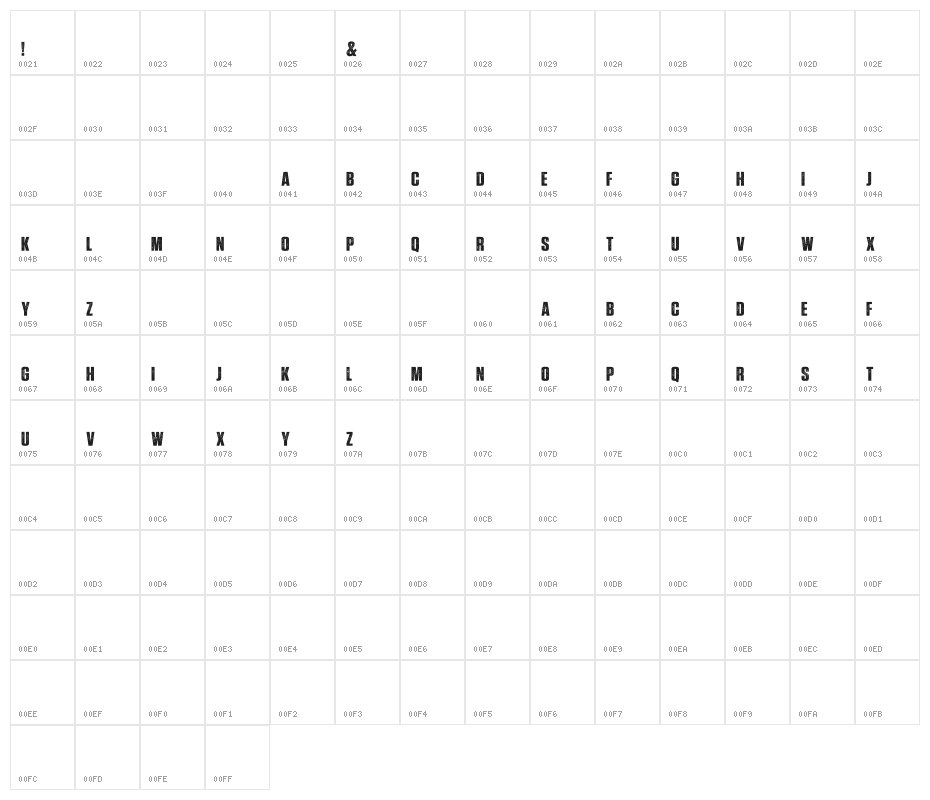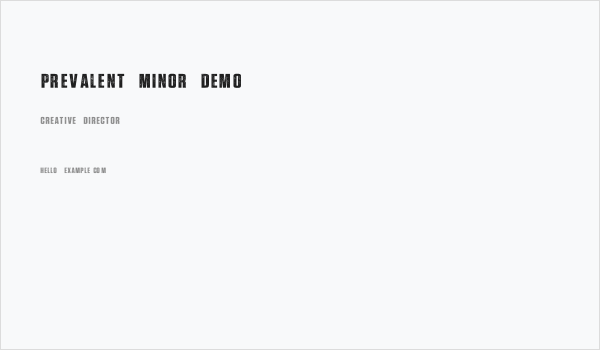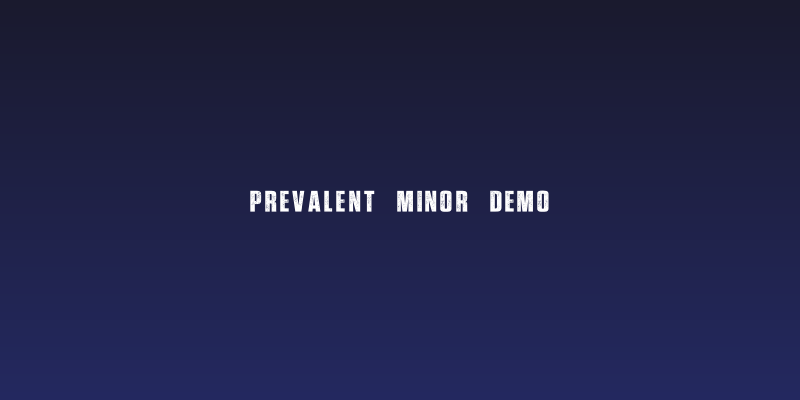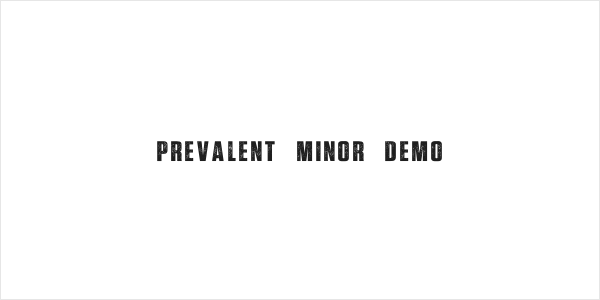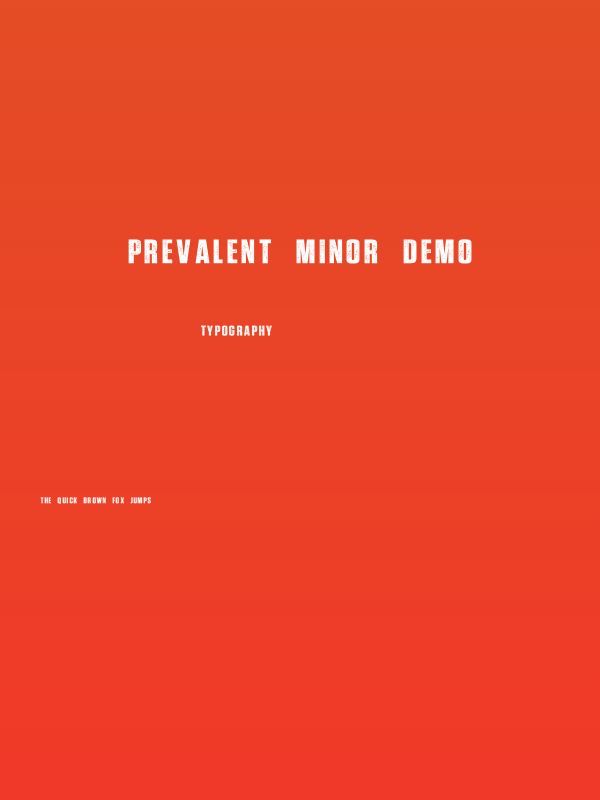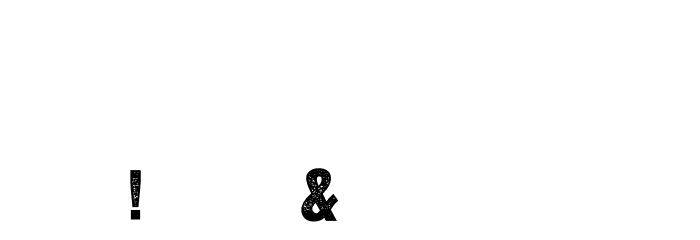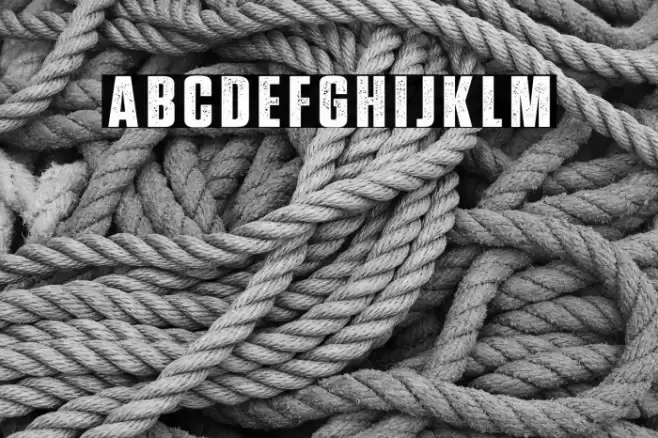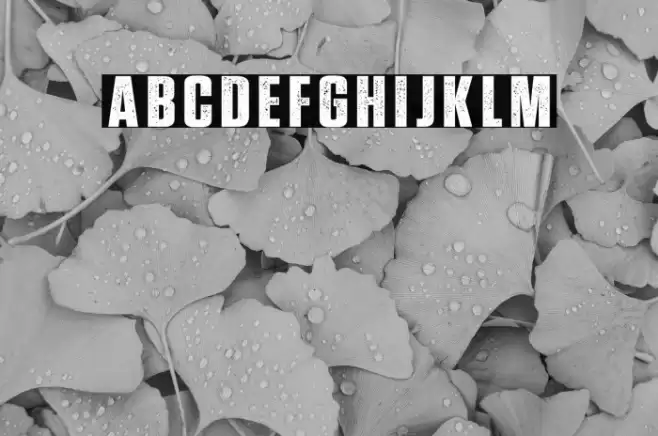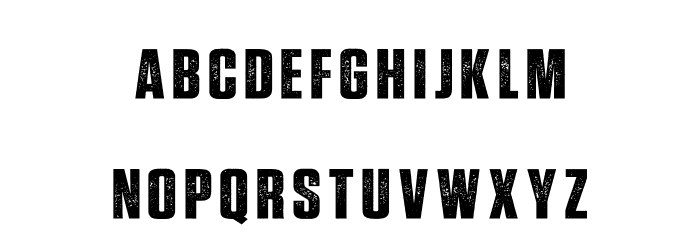
Prevalent Minor Demo Font
Prevalent Minor Demo Description
This font features a bold, distressed style with a textured appearance that gives it a rugged and vintage feel. The uppercase letters are prominently displayed, showcasing a strong and impactful presence. The characters are uniformly bold, with a consistent width that maintains readability while adding a touch of character through its worn, grunge-like texture. The font is well-suited for designs that require a bold statement, such as posters, headlines, or branding that seeks to convey a sense of strength and authenticity. The special characters, including exclamation marks and ampersands, maintain the same distressed style, ensuring consistency across all uses.
| Proposed Projects | Ideal for posters, branding, headlines, and any design needing a bold, vintage touch. |